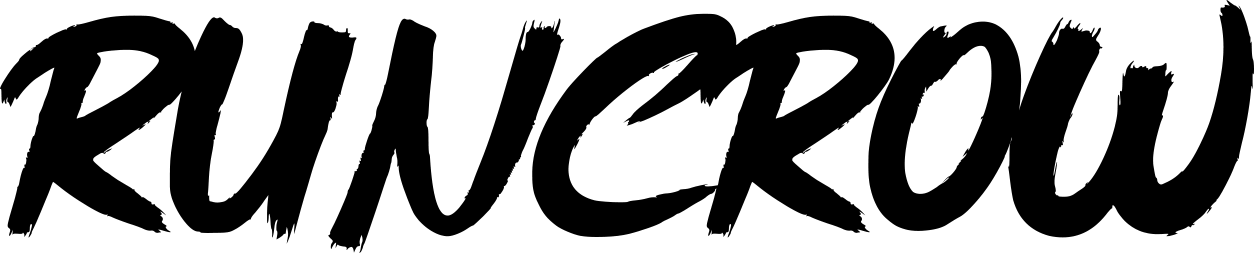
Runcrow Font
Runcrow is the brush font that is inspired by the creative play of thick inky brush style on paper. This font is perfect for designing any fun branding. You can use it in any poster, logo, invitation, title, movie, and more to add an artistic touch to your final graphic design. Download and enjoy!